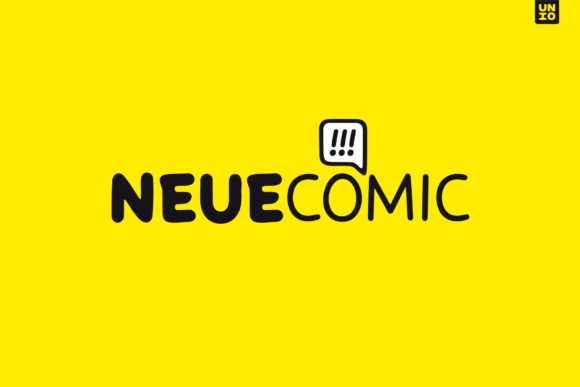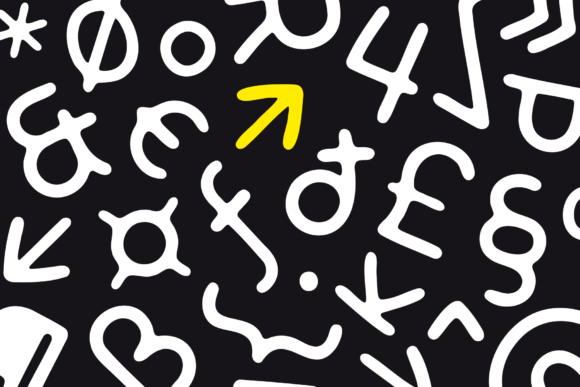
Neue Comic Font
About the Neue Comic Font
Unleash your creativity with Neue Comic Font, a versatile font perfect for a wide range of applications. Introducing “Neue Comic,” a dynamic typeface redefining playfulness and practicality in design. Crafted for legibility, it delivers a rhythmic design that breaks traditional boundaries. Inspired by comic book lettering, Neue Comic captures ’90s charm with seven weights and obliques, offering versatility. Explore its robust features and celebrate design joy.
Neue Comic’s playful yet legible nature makes it ideal for headlines, short-form text in posters and branding materials, and packaging design where a touch of retro-modern charm is desired. Its strong character, however, doesn’t translate well to body copy or extended reading; the unique letterforms can become visually fatiguing in large blocks of text. Avoid using it for UI elements or situations requiring high readability in small sizes.
Pairing Neue Comic effectively relies on contrasting its playful energy. A clean sans-serif like Open Sans or a geometric sans-serif such as Futura would offer a sophisticated counterpoint. For a more vintage feel, consider pairing it with a classic serif like Garamond or a slightly more playful serif like Playfair Display.
The font’s overall personality is best described as bold and friendly, possessing a retro-modern energy. Brands targeting younger demographics, those with a playful approach, or projects emphasizing nostalgia and 90s-inspired aesthetics will find Neue Comic a highly effective choice.
Neue Comic Font Usage Examples
Neue Comic Font Example